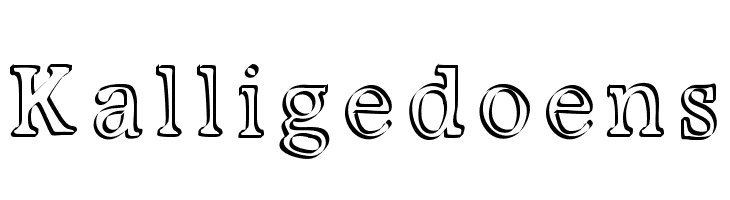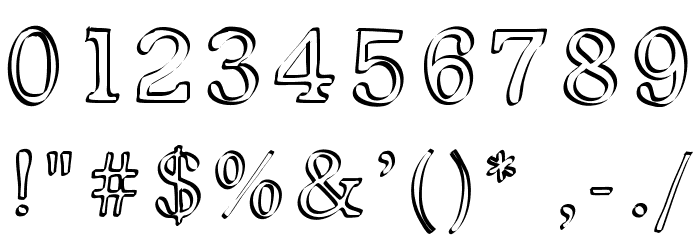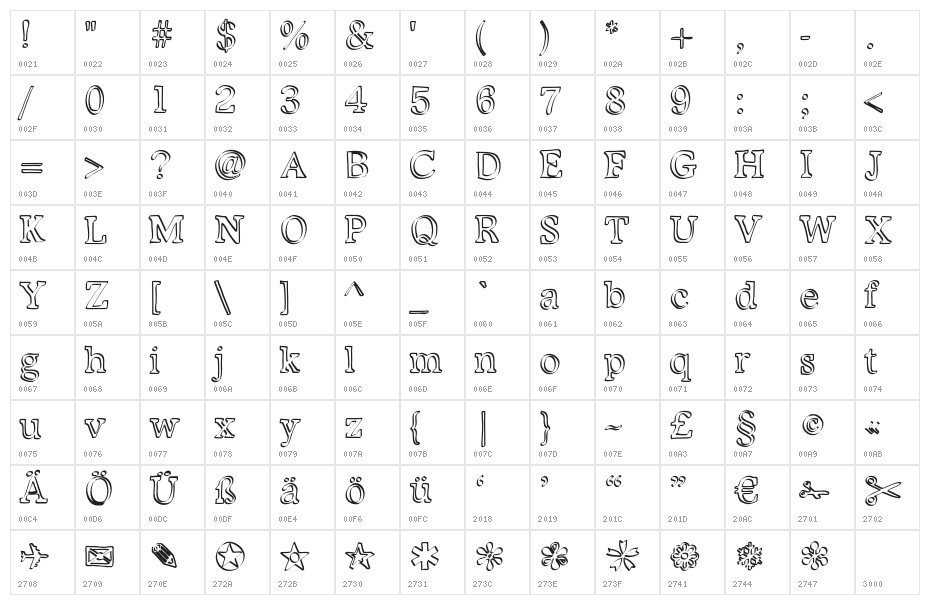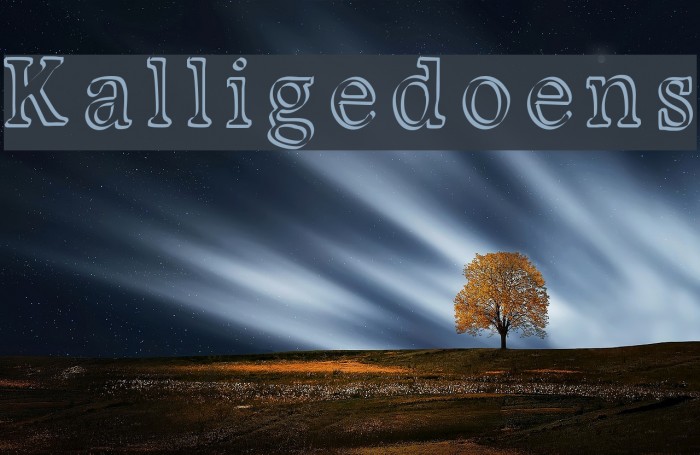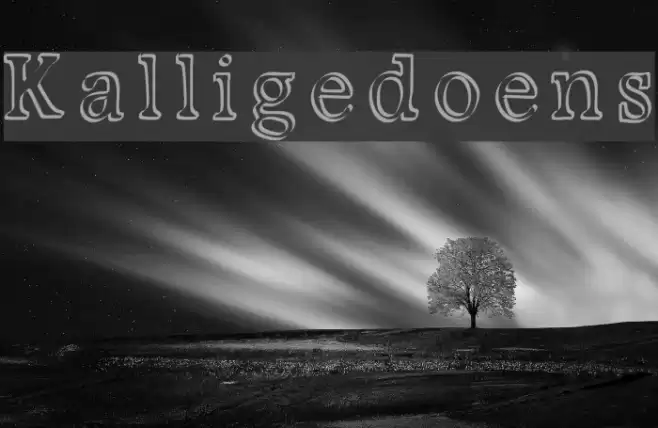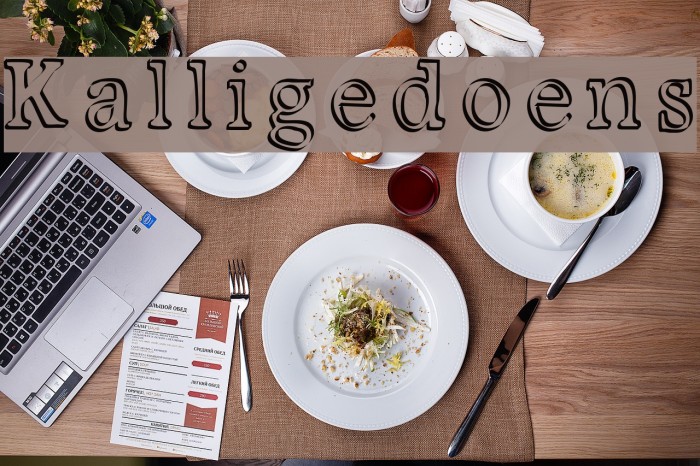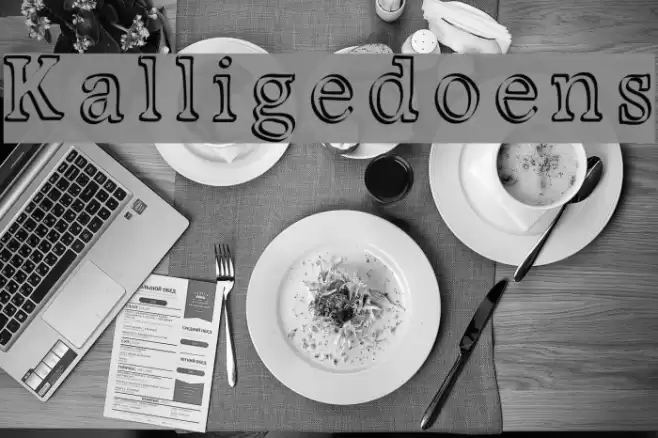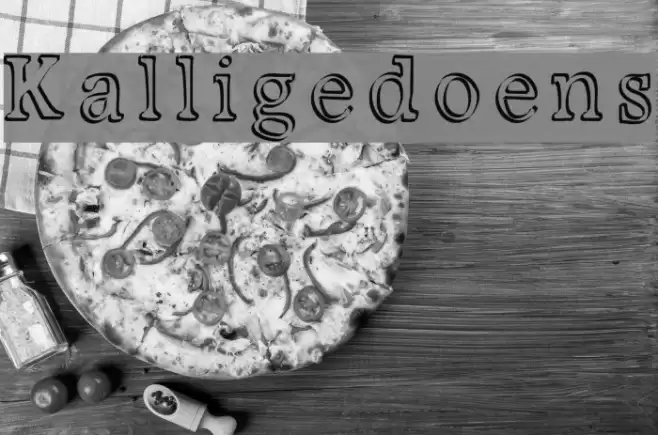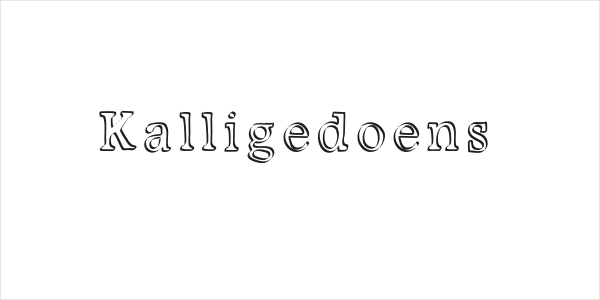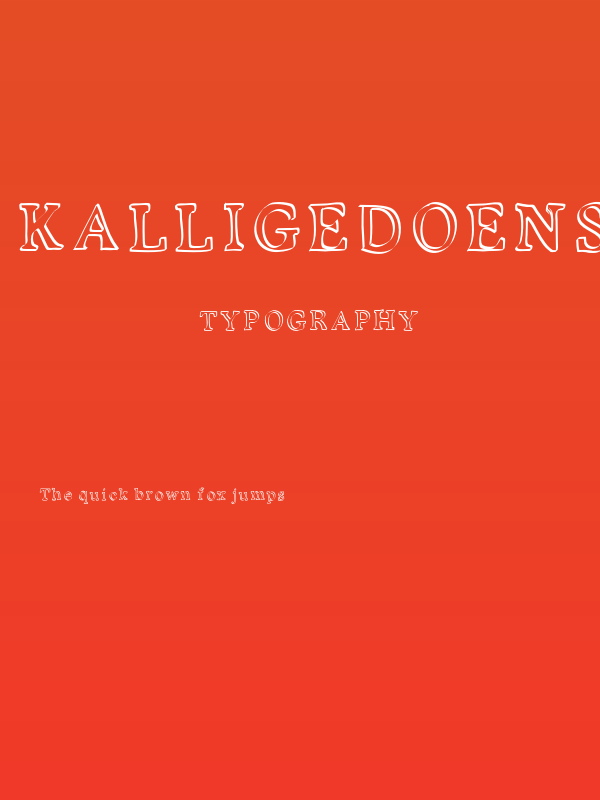
Kalligedoens Font
Kalligedoens Description
This font features a unique blend of classic serif elements with a modern twist. Each character is outlined, creating a hollow effect that adds depth and dimension. The serifs are pronounced, giving the font a traditional feel, while the hollow design introduces a contemporary edge. The uppercase letters are bold and commanding, while the lowercase letters maintain a consistent style, ensuring readability. Numbers and special characters follow the same design principles, making them versatile for various applications. The overall appearance is both elegant and striking, suitable for creative and artistic projects.
| Proposed Projects | Ideal for artistic posters, creative branding, unique invitations, and eye-catching headlines. |